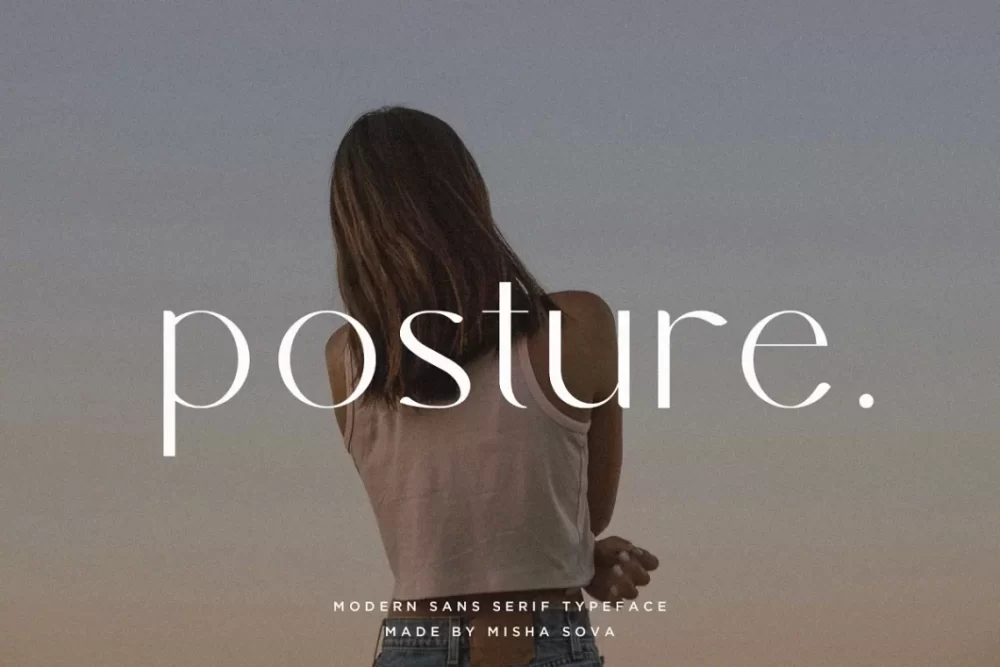
Posture Font
Posture is a modern sans serif typeface. It is perfect for logo design, magazine headers, branding projects and more.
• Letters
• Numbers
• Symbols
• Multilingual Support
• Basic Ligatures